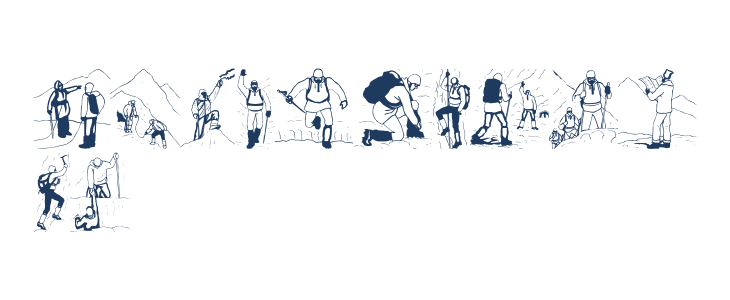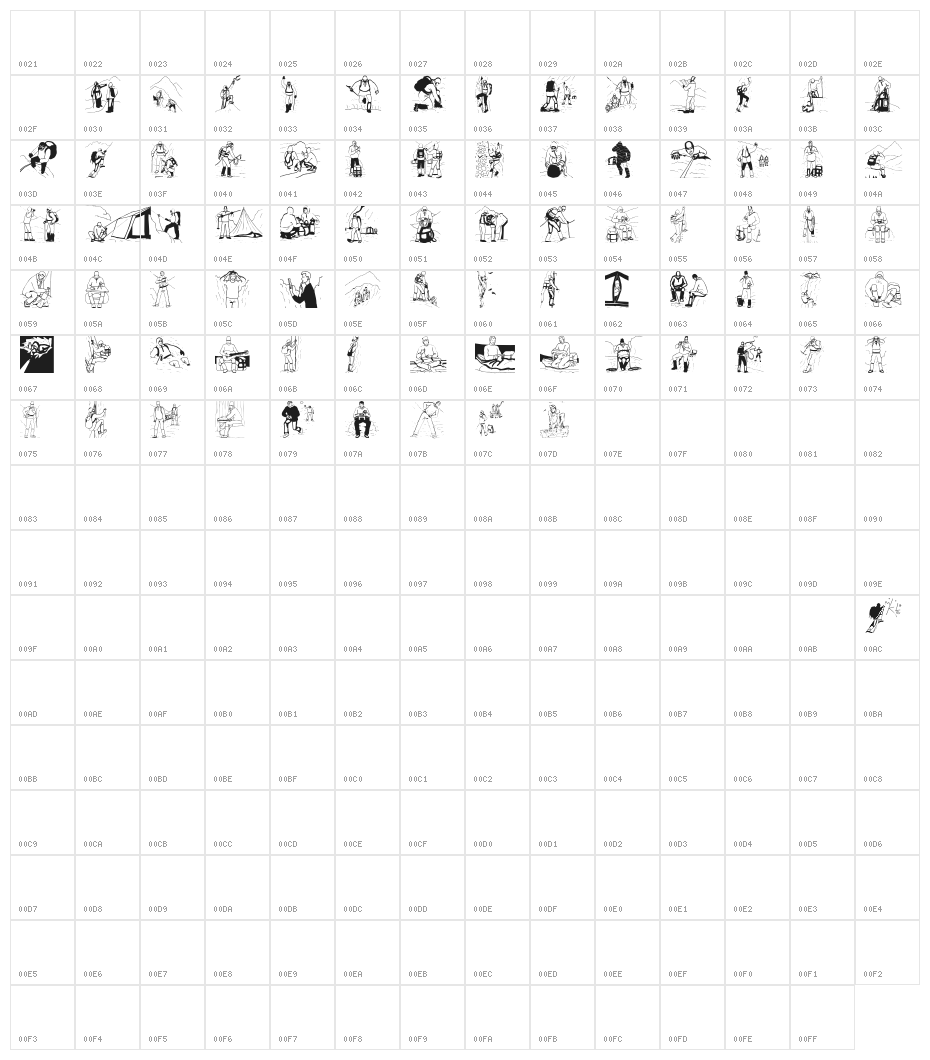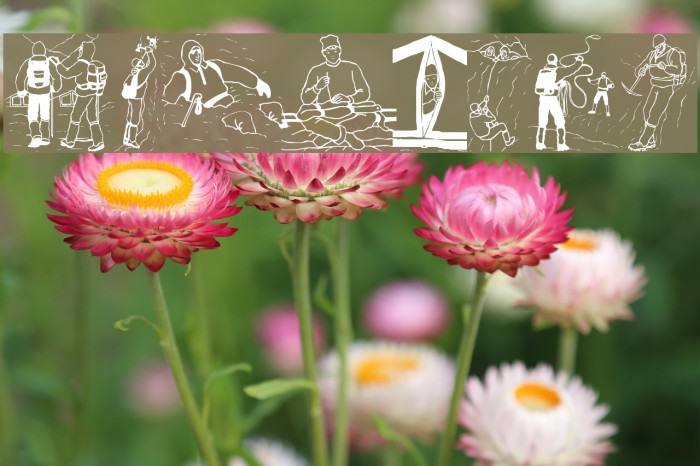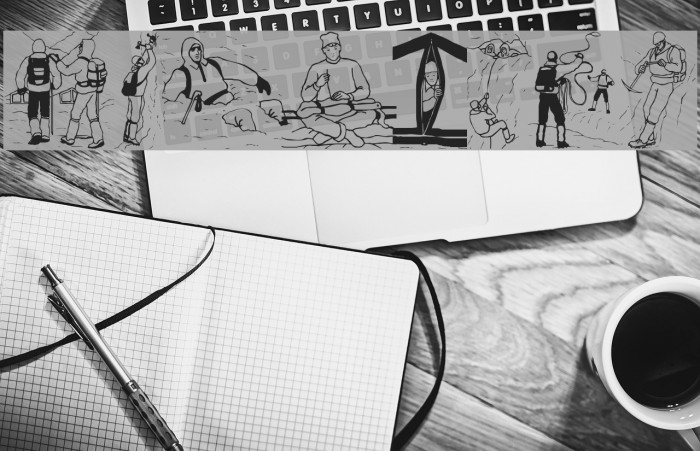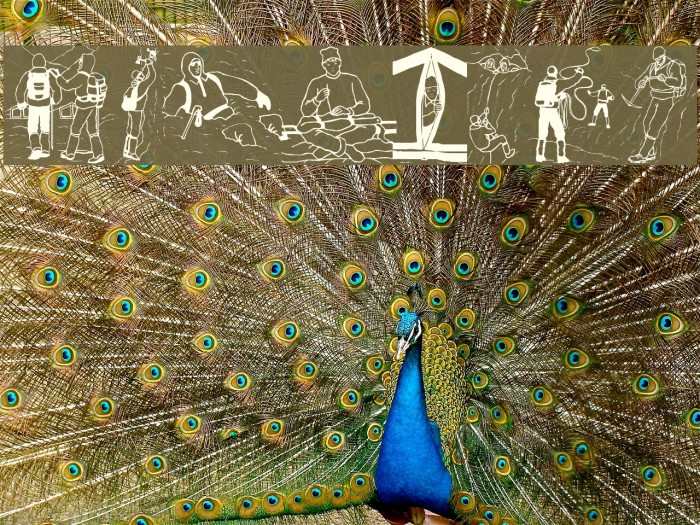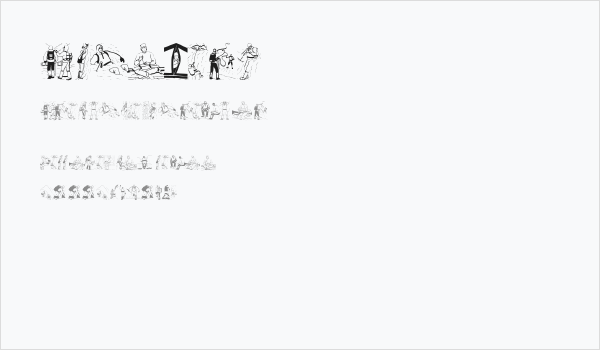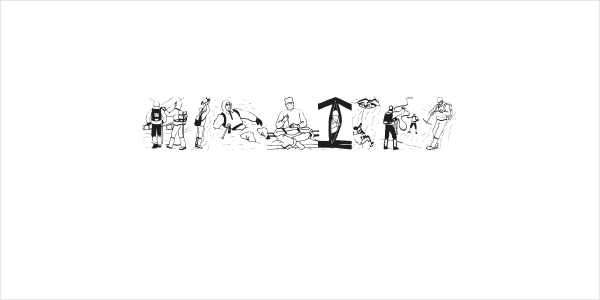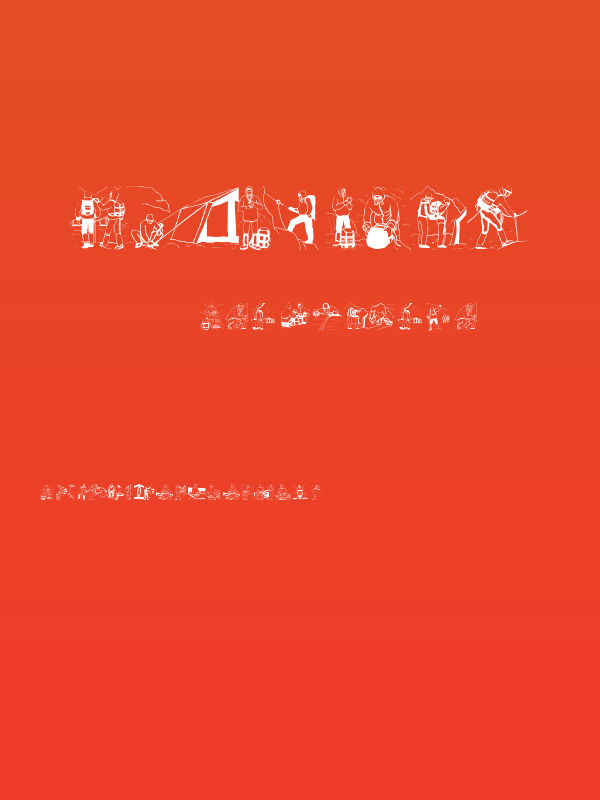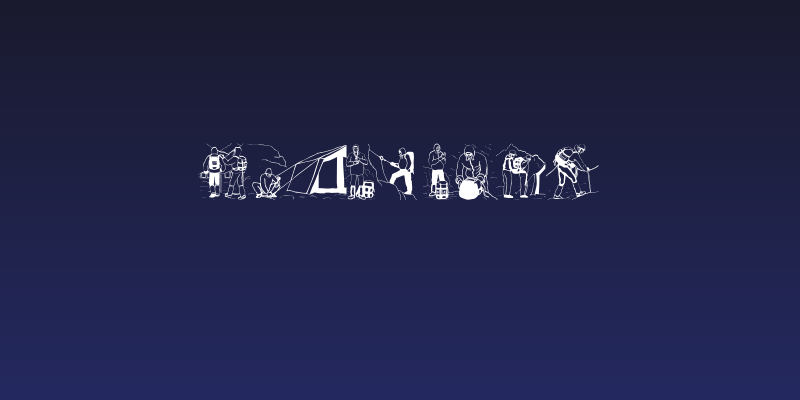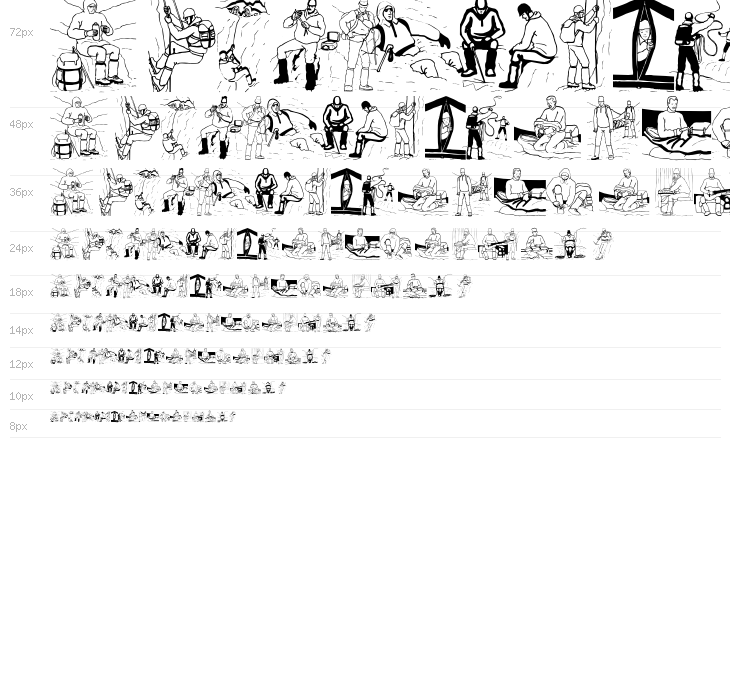
Climbers Font
Climbers Description
A decorative display font composed of detailed black-and-white illustrations of climbers and mountaineering scenes, with each character represented by a unique drawing. The style is sketch-like, with strong outlines and minimal shading, evoking an adventurous and outdoorsy atmosphere.
| Overall Style | Decorative, Adventure, Sketch |
| Use Case | Headlines, Logos, Themed graphics |
| Proposed Projects | Posters, event flyers, adventure branding, themed invitations, childrenΓ’β¬β’s books, outdoor gear packaging. |